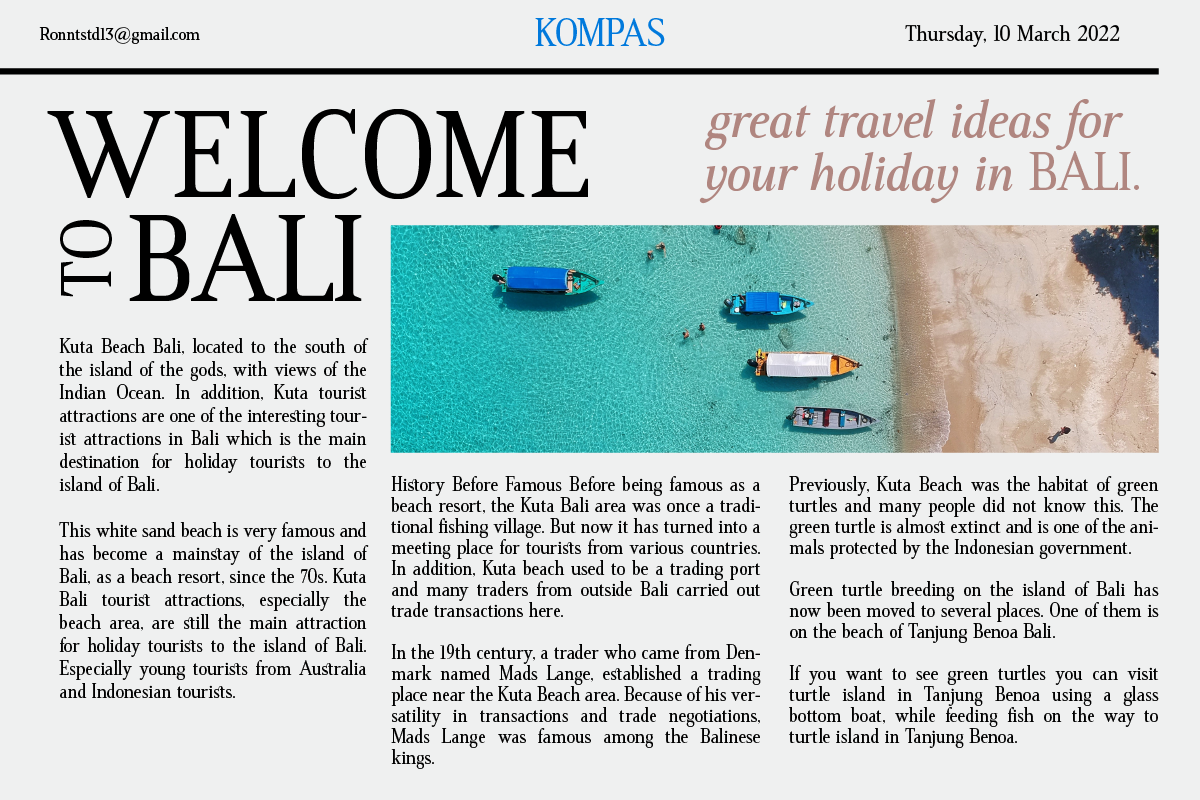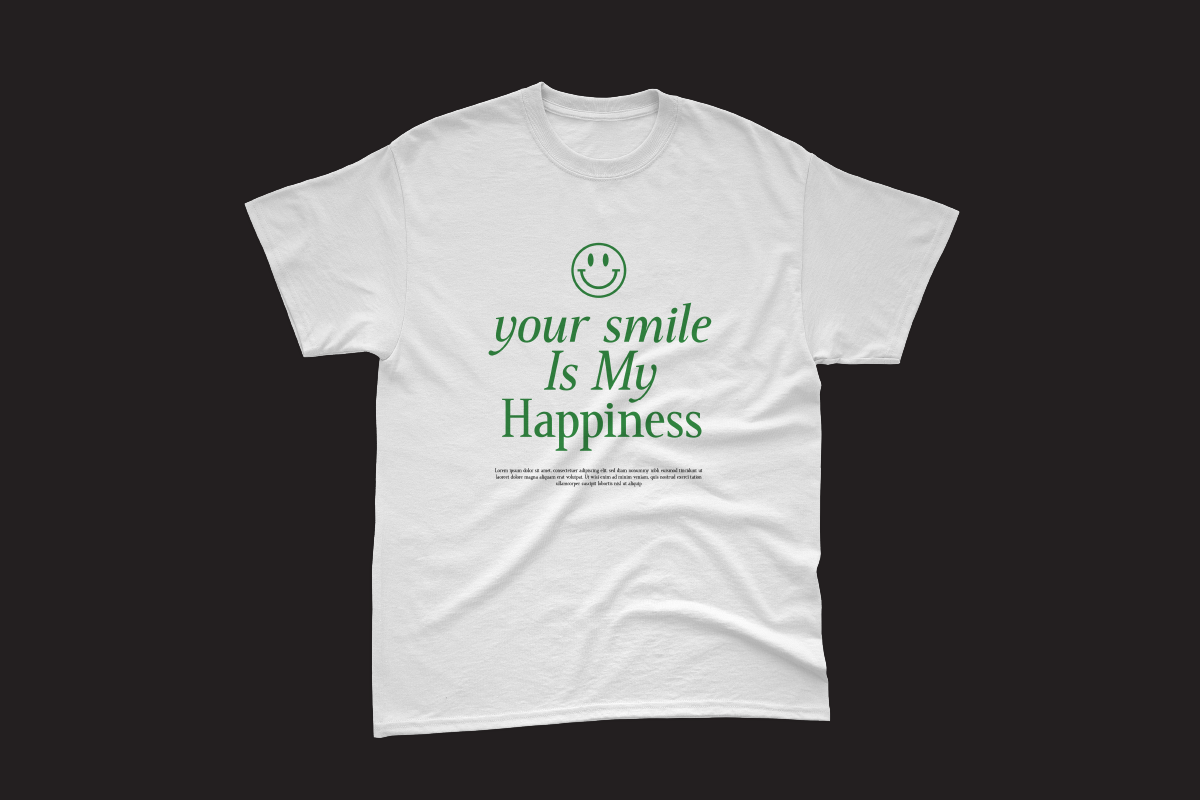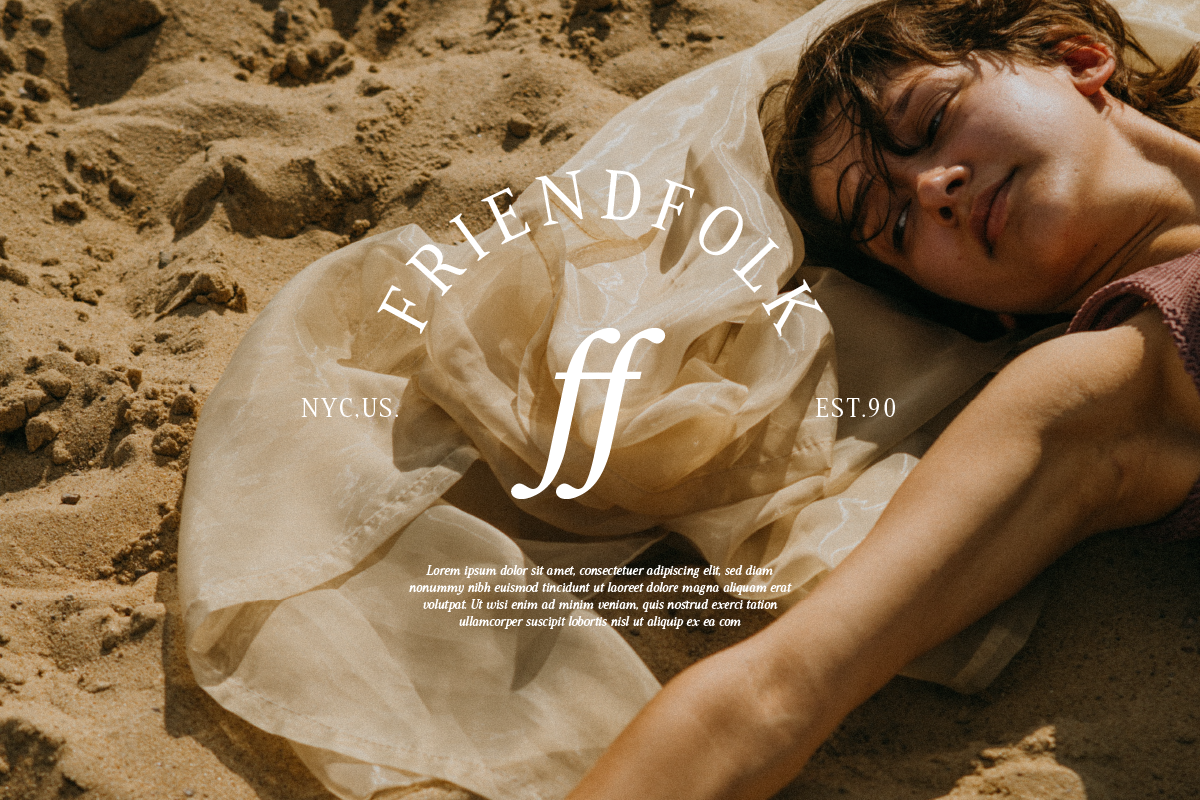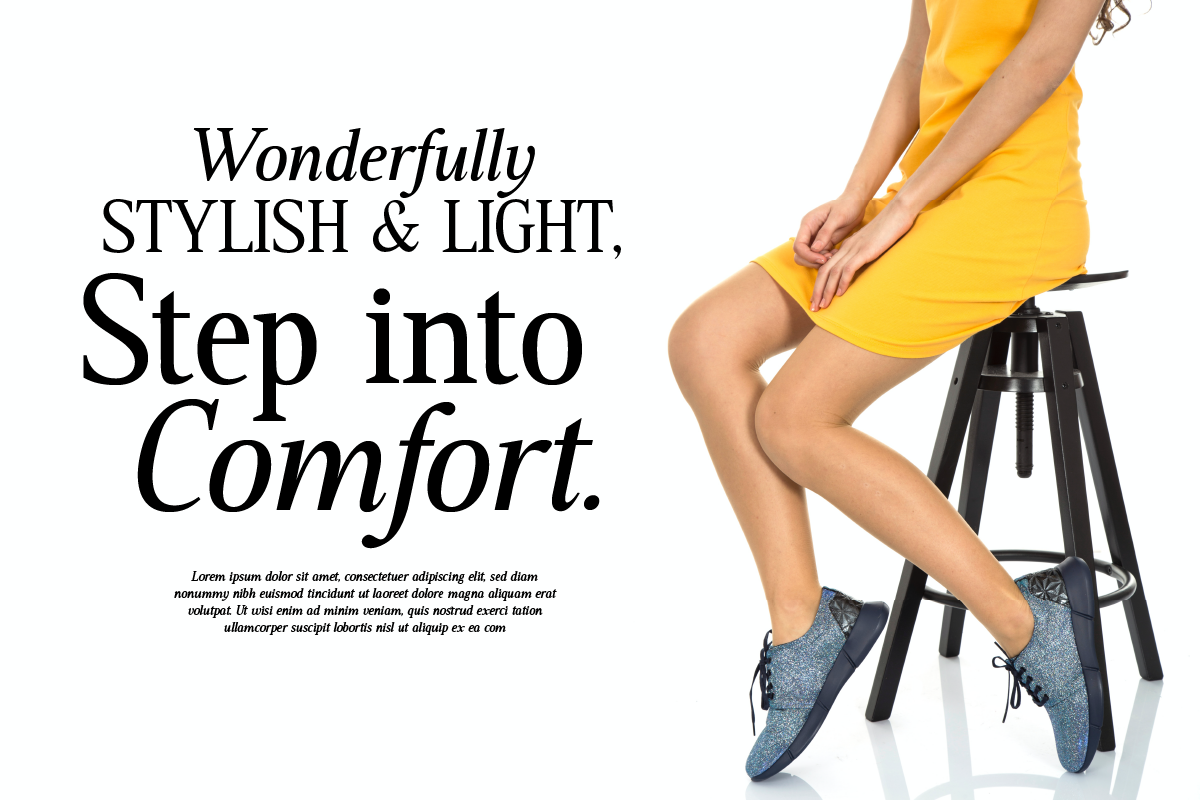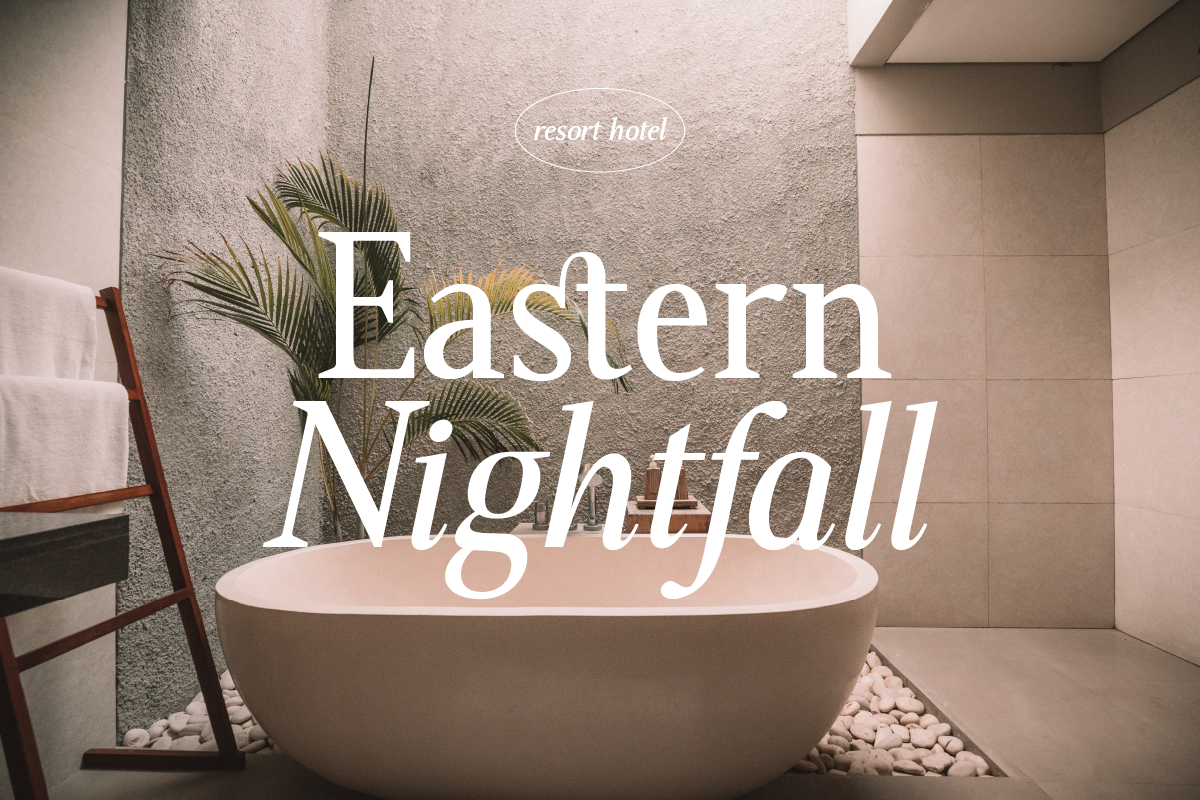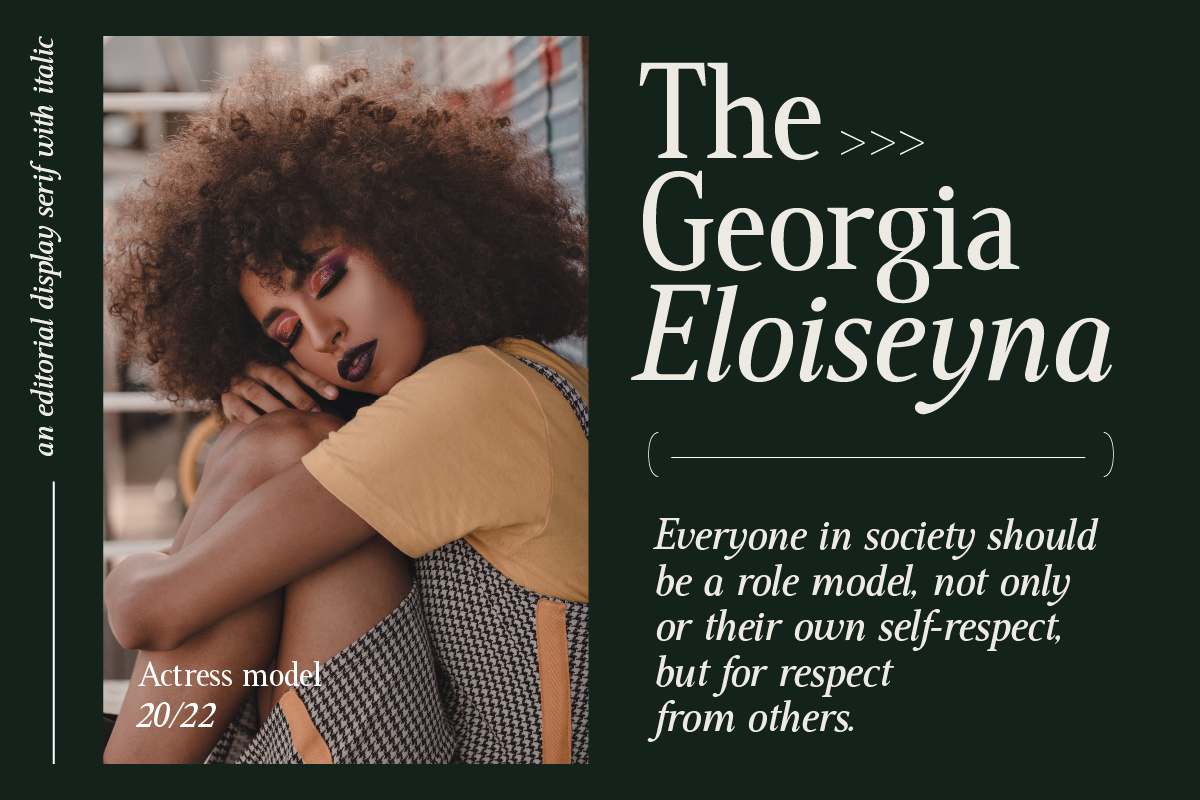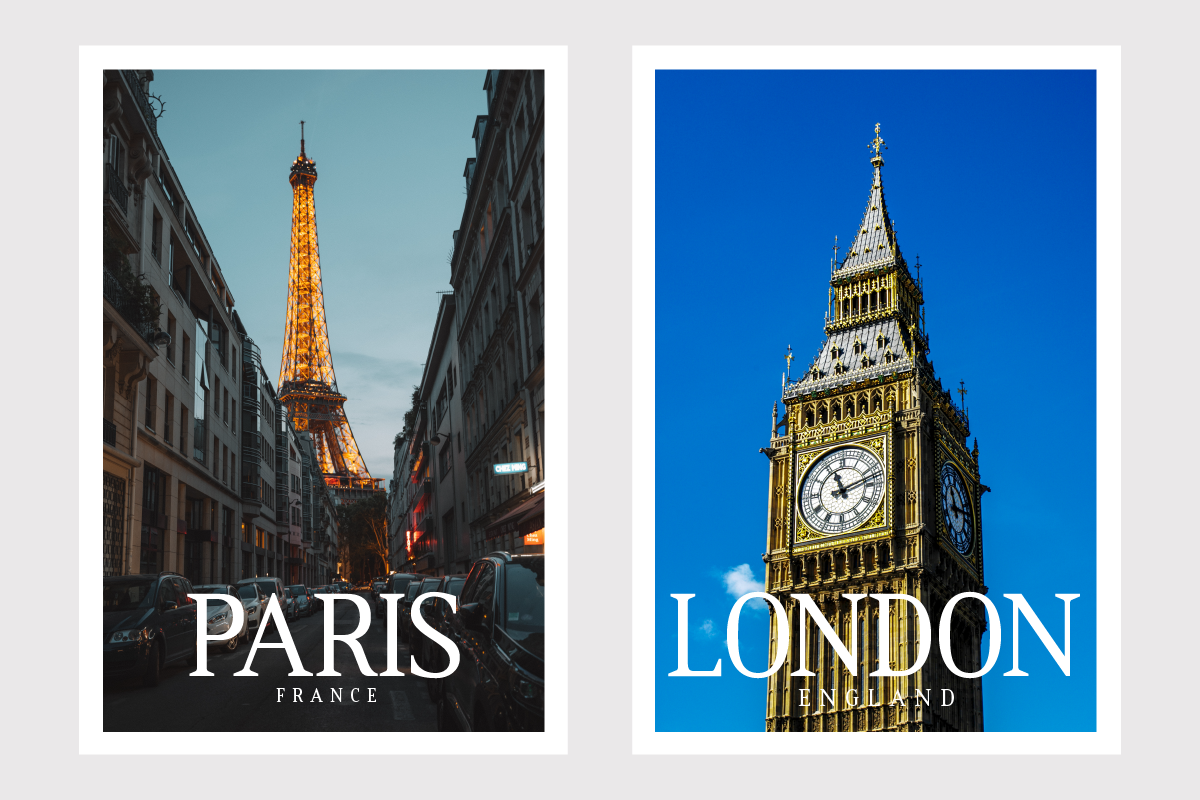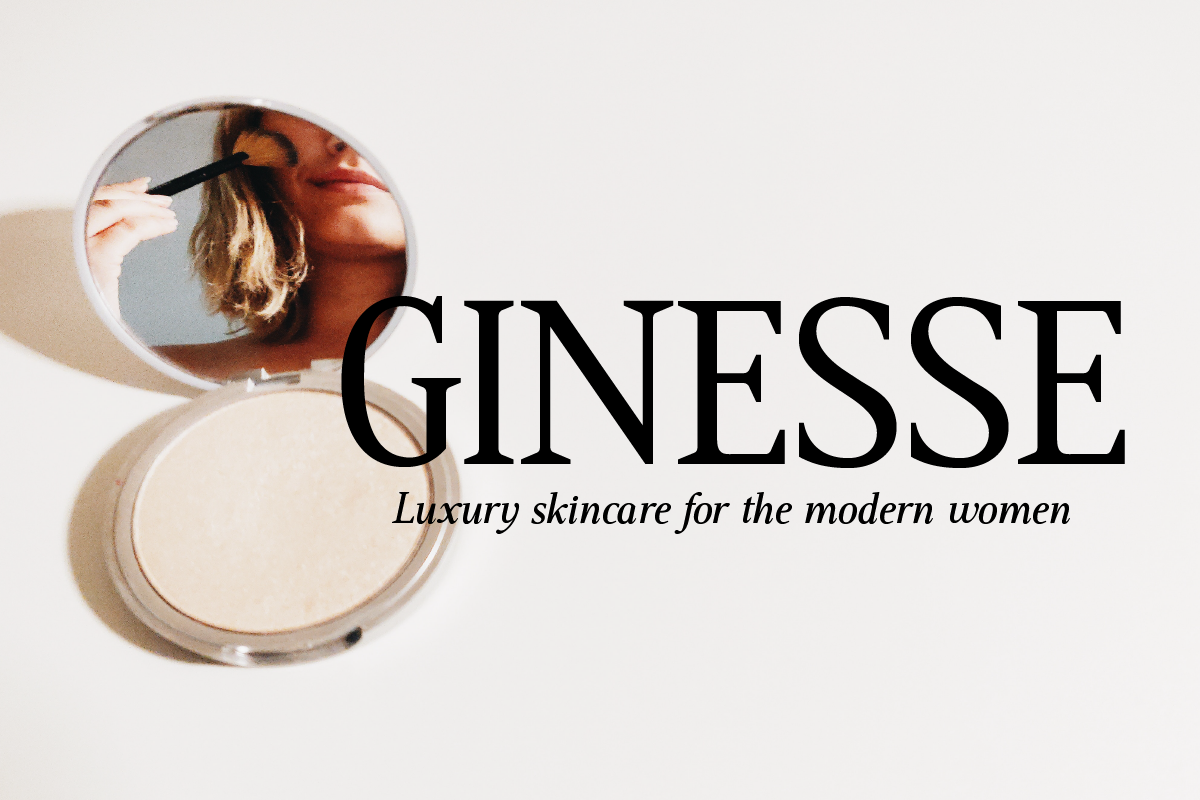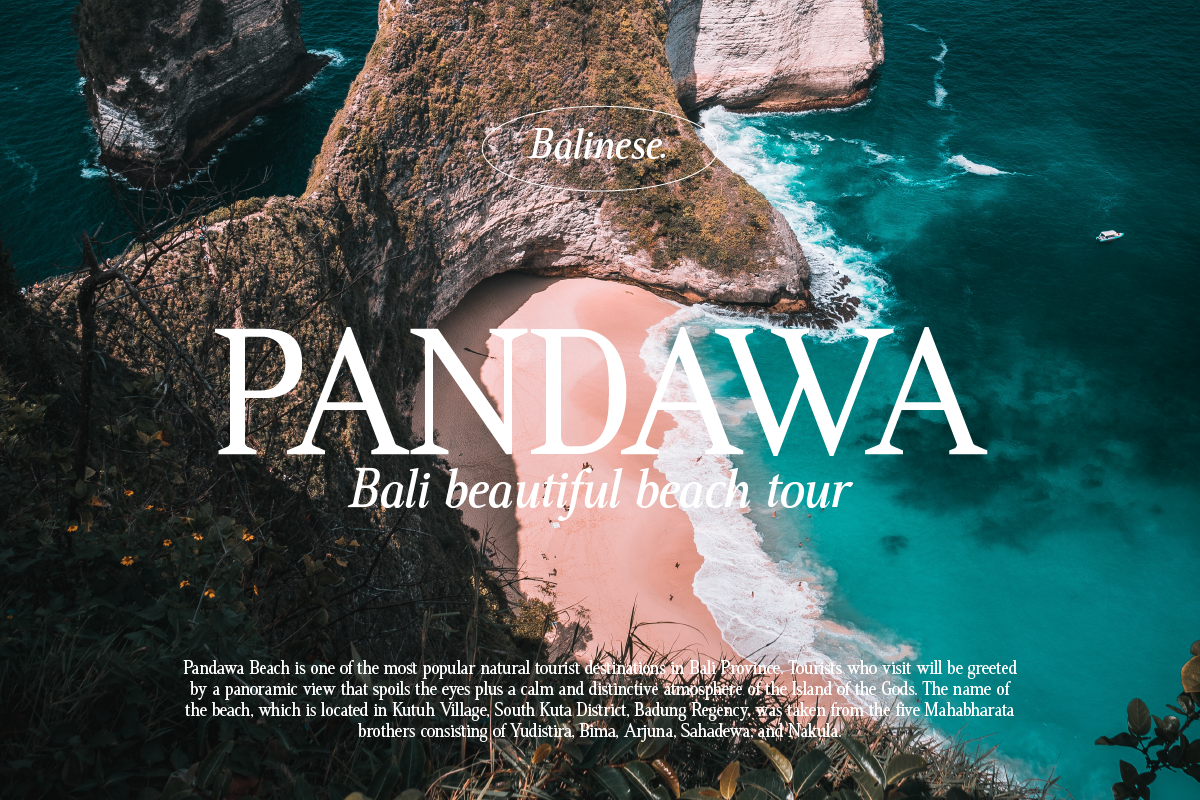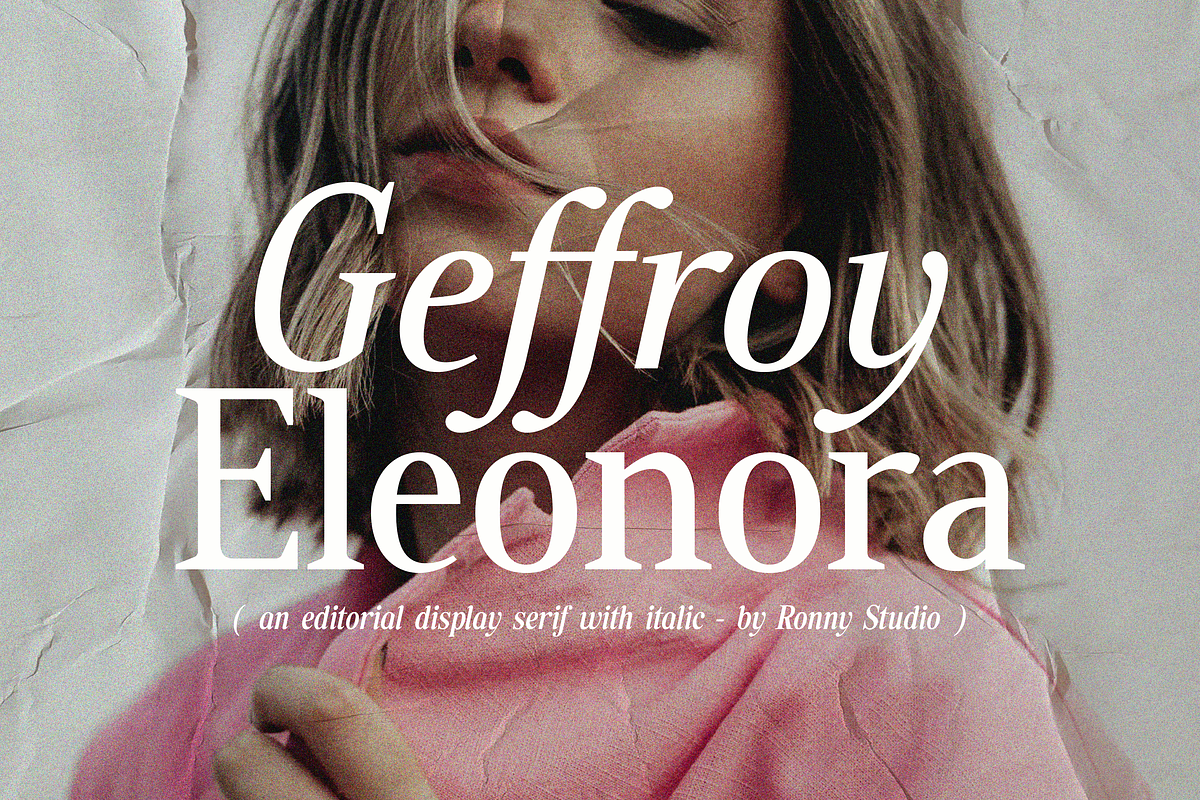
Geffroy Eleonora A Nostalgic Serif
Geffroy Eleonora Serif is a classy eighties magazine-inspired font - with complementary italic versions. Both come in two versions one with more contrast and sharper than the other. In true Eighties style. This font looks premium and is very suitable for your design needs such as invitations, labels, logos, magazines, books, greeting / wedding cards, packaging, fashion, make up, stationery, novels, labels or any type of advertising purpose.
- Lowercase & Uppercase
- alternates